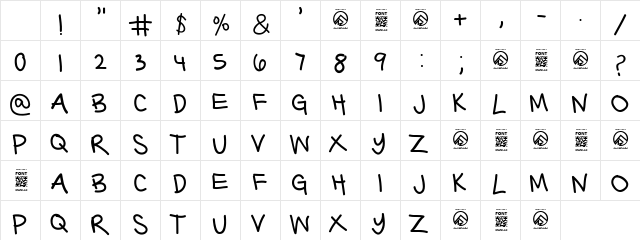
Complete Barter with a Gypsy Thin Thin glyph index. Displaying only characters natively supported by Barter with a Gypsy Thin Thin font.
Barter with a Gypsy Thin is a composed and adaptable typeface that performs quietly and consistently across a wide range of design contexts. Its slender proportions lend an understated elegance to any composition.